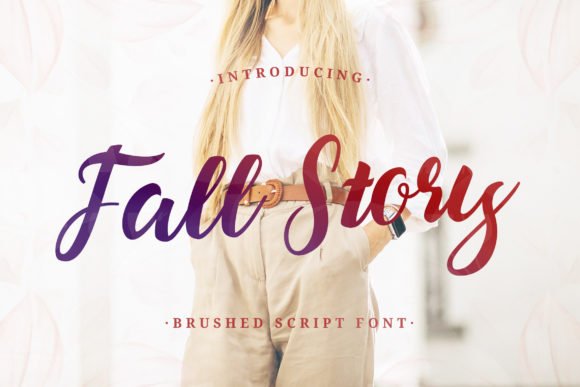
The Perfect Font for a Timeless Story
There’s something magical about a handwritten font, isn’t there? The way it adds a personal touch to your designs, making them feel more authentic and heartfelt. I still remember the first time I stumbled upon the perfect font for a wedding invitation – it was love at first sight!
That’s when I discovered the Fall Story Font, a stunning script font that adds a touch of elegance to any design. This beautiful font is perfect for creating a warm and inviting atmosphere, making it ideal for wedding invitations, thank you cards, quotes, and more. As a designer, you’ll appreciate the versatility of Fall Story Font, which can be used for a wide range of projects, from logos and business cards to greeting cards and social media graphics.
Fall Story Font Key Features
- Font Family: Fall Story is a beautiful script font, perfect for creating a warm and cozy atmosphere in your designs.
- Unique Characteristics: The font features elegant, handwritten strokes and subtle flair, making it ideal for creative projects, invitations, and branding materials.
Designer Review: Fall Story Font
Overall, I think Fall Story Font is a great addition to any design project, especially those that require a warm and cozy feel. ✨ Here are some things that I think work really well:
- Unique and creative letterforms that evoke a sense of nostalgia and storytelling
- Excellent legibility, making it easy to read even in smaller font sizes
- A wide range of weights and styles to choose from, offering plenty of options for customization
However, like any font, Fall Story Font has its limitations. ⚠️ Here are a few things to keep in mind:
- Might be too ornate or busy for some designs, so use it sparingly
- Not as versatile as some other fonts, so it’s best suited for specific projects or themes
- May not be the best choice for body text or large blocks of text, as it can be overwhelming
Overall, I think Fall Story Font is a great choice for designers looking to add a touch of warmth and personality to their projects. Just be mindful of its limitations and use it thoughtfully to get the most out of it.
Tips for Getting the Most Out of Fall Story Font
Use Fall Story Font to create a cozy and autumnal atmosphere in your designs.
Pair the font with warm colors and natural textures to enhance the fall theme.
Experiment with different font sizes and styles to add visual interest to your designs.
Fall Story Font is perfect for:
Autumn-themed invitations and greeting cards.
Seasonal social media graphics and posts.
Cozy home decor and furniture design.
Outdoor and nature-themed advertising campaigns.